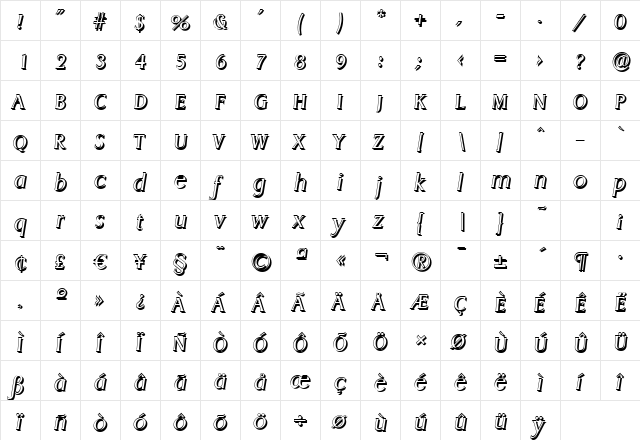
AaronBeckerShadow-Light Italic Font Preview
Design Context for AaronBeckerShadow-Light Typeface
AaronBeckerShadow-Light is built around its visual character rather than neutral utility — its distinctive forms are designed to make an impression at display sizes. Its italic angle brings a sense of urgency and motion to the letterforms. The delicate stroke weight brings airiness and refinement to layouts.
Font Pairing: Pair with a clean neutral sans-serif for body copy to let AaronBeckerShadow-Light's character lead without overwhelming the composition.
Pro Tip: Use AaronBeckerShadow-Light exclusively at display sizes — it was designed to be seen, not read at length. Let a neutral companion handle body copy.